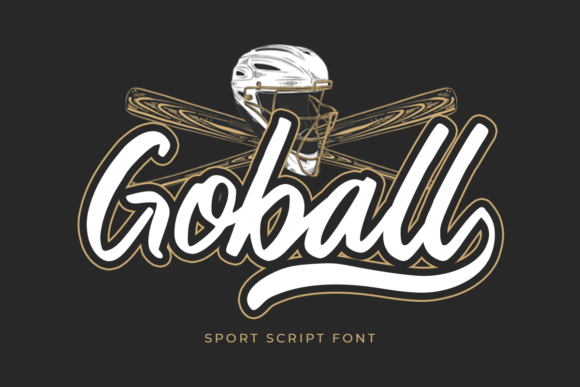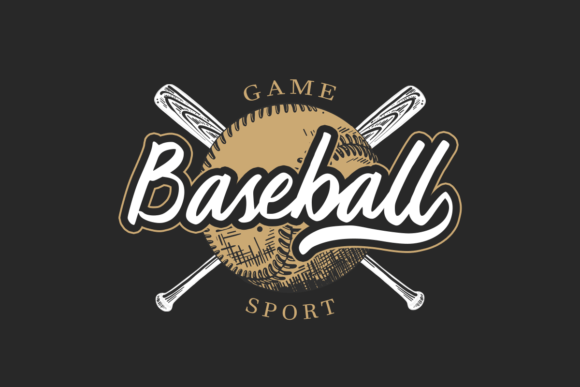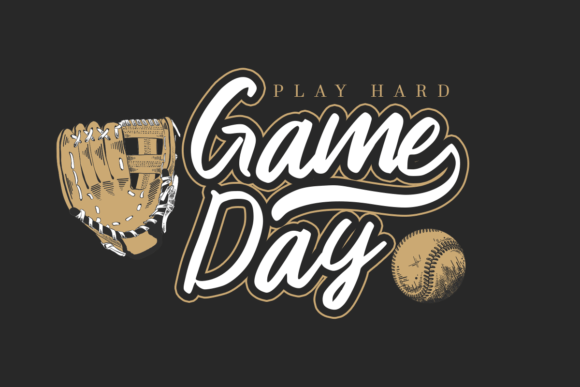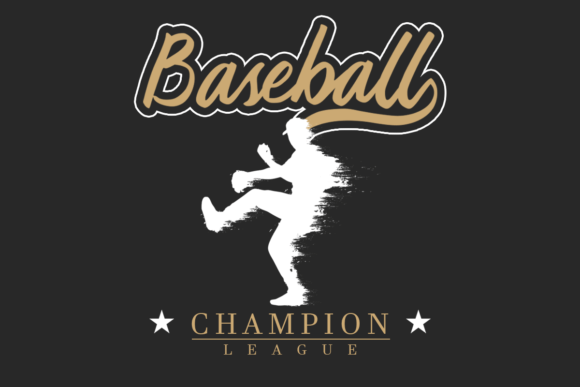
Goball Font: A Bold Sport Script Font for Dynamic Logo Design
About the Goball Font
The wait is over! The incredible Goball Font is now available for your design toolkit. Introducing Goball – Sport Script Font
This unique typeface combines the elegance of a script font with the boldness of a sports font, creating a look that is both dynamic and stylish. Goball is perfect for creating designs that capture the energy and excitement of sports. Its bold strokes and sweeping curves will help your designs stand out and grab the attention of your audience.
Goball thrives in headlines, logos, and short, impactful text for sports-related branding, posters, and packaging. Its strong personality makes it ideal for conveying dynamism and energy. Avoid using Goball for body text or lengthy paragraphs; its bold strokes can become visually overwhelming in extended use.
Pairing Goball with a clean sans-serif like Open Sans for body copy creates a balanced design. For a more refined feel, consider a classic serif such as Garamond. These pairings provide a sophisticated contrast to Goball’s bold script style, allowing its dynamic character to shine.
Goball’s overall personality is bold, energetic, and slightly rebellious, reflecting a youthful and exciting brand identity. It’s not suitable for projects requiring sophistication or minimalism; instead, it excels at conveying action, speed, and competition.
Goball Font Usage Examples
Goball Font Example